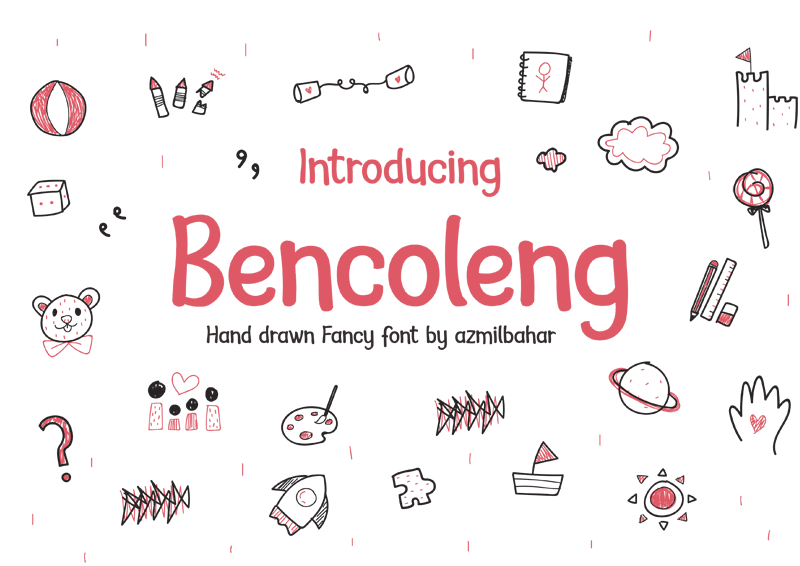
Font name: | Bencoleng |
Author: | Mohammad Azmil Bahar |
Note by Mohammad Azmil Bahar | |
Dollanan is a comically hilarious and whimsical display font with an undeniably youthful charm. Get inspired, and used it for any design project that needs a fun twist. |